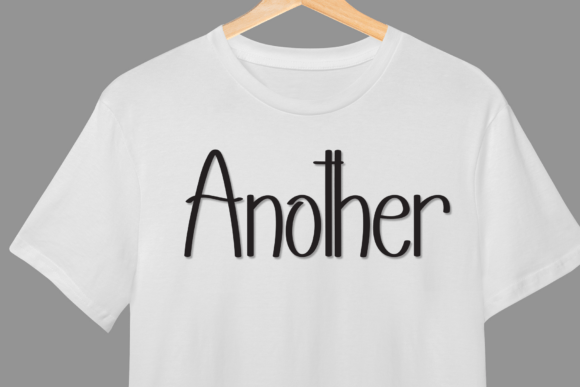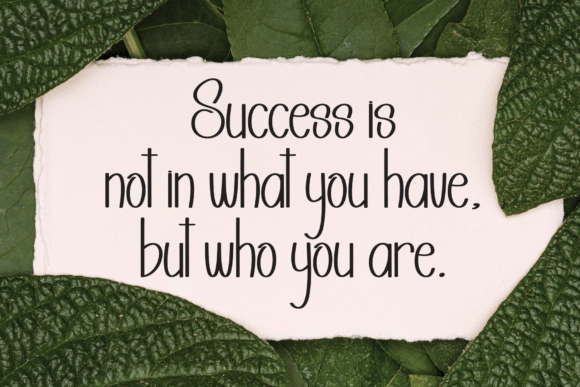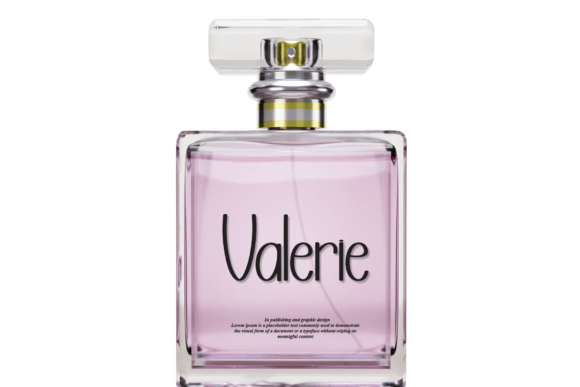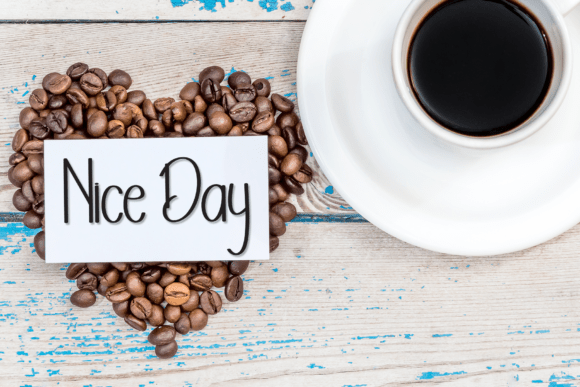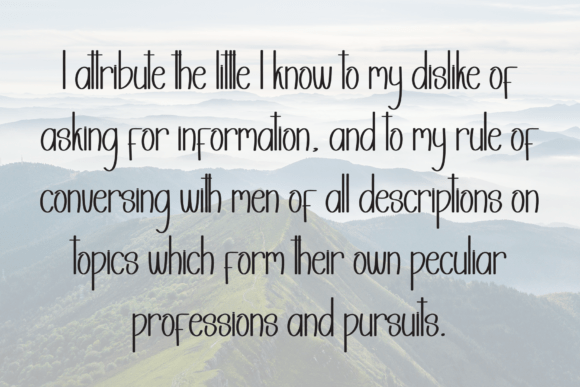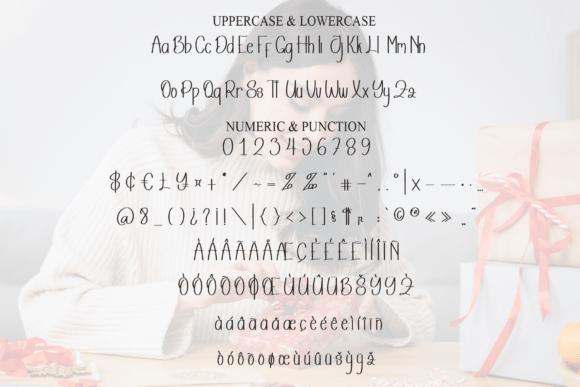
Gifting Something Font: A Charming Handwritten Display Font
Are you looking for a font that can add a touch of warmth and amiability to your designs? Look no further than Gifting Something Font, a charmingly expressive handwritten display font that is sure to breathe life into your creations. With its vivacious character and enchanting power, this font is an invaluable asset for infusing your designs with a playful spirit and enveloping them in a jubilant aura.
What Makes Gifting Something Font So Special?
Gifting Something Font is a unique and carefully crafted font that is designed to radiate an encompassing warmth and amiability. Its handwritten style gives it a personal and intimate feel, making it perfect for designs that require a touch of elegance and sophistication. Whether you’re creating wedding invitations, cards, or other designs that require a sprinkle of allure, this font is sure to impress.
Wedding invitations and cards are a great way to showcase the beauty of Gifting Something Font. Its charming and expressive style makes it perfect for conveying the joy and excitement of a special occasion. With this font, you can create stunning invitations that set the tone for a memorable and unforgettable event. Additionally, the font’s playful spirit makes it ideal for creating fun and engaging cards that are sure to delight the recipient.
Adding a Touch of Allure to Your Designs
Gifting Something Font has an enchanting power that can add a touch of allure to any design. Its vivacious character and charming style make it perfect for designs that require a sprinkle of magic and wonder. Whether you’re creating posters, flyers, or social media graphics, this font is sure to capture the attention of your audience and leave a lasting impression.
Benefits of Using Gifting Something Font
- Unique and Expressive Style: Gifting Something Font has a unique and expressive style that sets it apart from other fonts.
- Perfect for Wedding Invitations and Cards: The font’s charming and romantic style makes it perfect for wedding invitations and cards.
- Playful Spirit: The font’s playful spirit makes it ideal for creating fun and engaging designs.
- Enchanting Power: The font’s enchanting power can add a touch of allure to any design.
- Easy to Read: Despite its decorative style, Gifting Something Font is easy to read and understand.
Tips for Using Gifting Something Font
Here are some tips for using Gifting Something Font in your designs:
- Use it for Headings: Gifting Something Font is perfect for headings and titles, where its decorative style can really shine.
- Pair it with Other Fonts: Consider pairing Gifting Something Font with other fonts to create a unique and interesting contrast.
- Keep it Simple: Despite the font’s decorative style, it’s still important to keep your designs simple and easy to read.
Gifting Something Font is a charmingly expressive handwritten display font that is sure to add a touch of warmth and amiability to your designs. With its vivacious character and enchanting power, this font is an invaluable asset for infusing your creations with a playful spirit and enveloping them in a jubilant aura. Whether you’re creating wedding invitations, cards, or other designs, Gifting Something Font is sure to impress. So why wait? Download Gifting Something Font today and start creating stunning designs that capture the attention of your audience!